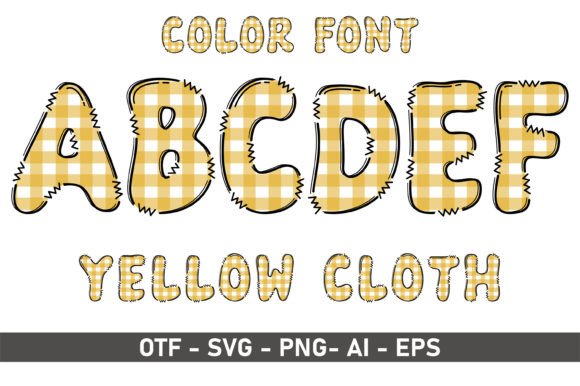
Dive into the whimsical world of Yellow Cloth Font, an extraordinary creation by Veil. Step into a color palette bursting with life, where each letter dances with artistry. Let your imagination run free with this playful font family designed to ignite joy and bring smiles to faces.
Yellow Cloth Font is not just a collection of letters; it's an invitation to explore a world of enchantment. It's perfect for adding a touch of magic to your designs, whether it's a children's book, an enchanting poster, or a heartfelt greeting card. The possibilities are limitless.
With its whimsical strokes and vibrant colors, Yellow Cloth Font is sure to captivate young hearts. Let the stories come alive as children dive into the pages of your book, their eyes dancing with delight. Let the characters leap off the pages, their personalities shining through with every curve and twist of the letters. Your creations will become cherished memories, passed down from generation to generation.
But Yellow Cloth Font isn't just for children. Its playful spirit can add a touch of whimsy to any design. Create posters that pop with personality, invitations that spark curiosity, and greeting cards that warm hearts. Let your designs stand out from the crowd, leaving a lasting impression on everyone who sees them.
With Yellow Cloth Font, you have the freedom to express yourself like never before. Its vibrant colors and cheerful nature will infuse your designs with positivity and light. So, embark on a creative adventure, let your imagination soar, and let Yellow Cloth Font paint your world with colors of joy.